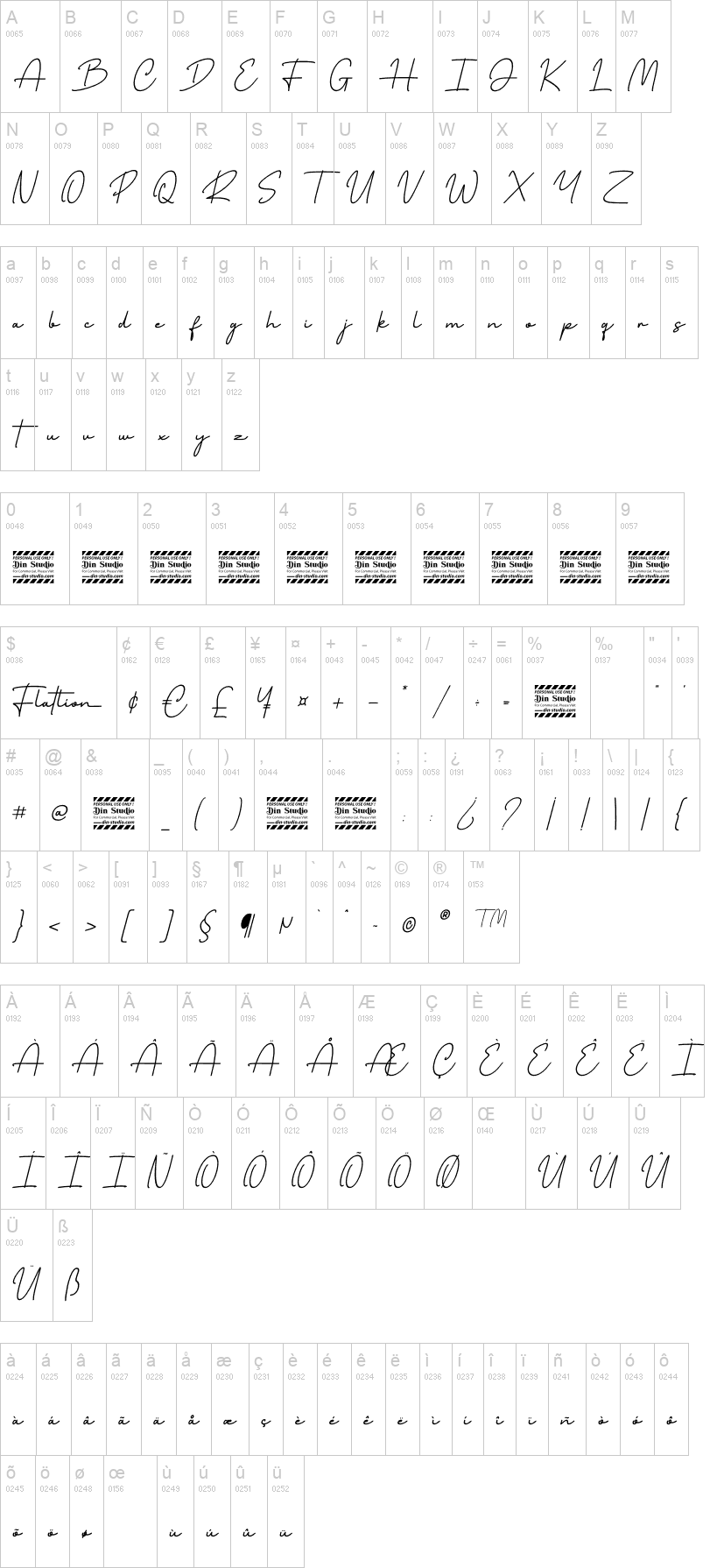
Introducing Flatlion A Script Font
This typeface with elegant style looks very interesting for loads of different projects and promotions. It is perfect to be used on your website, for your social media branding, Pinterest banners, printed products, and more!